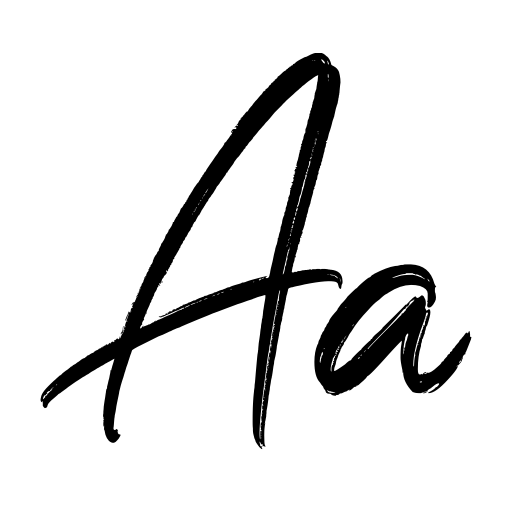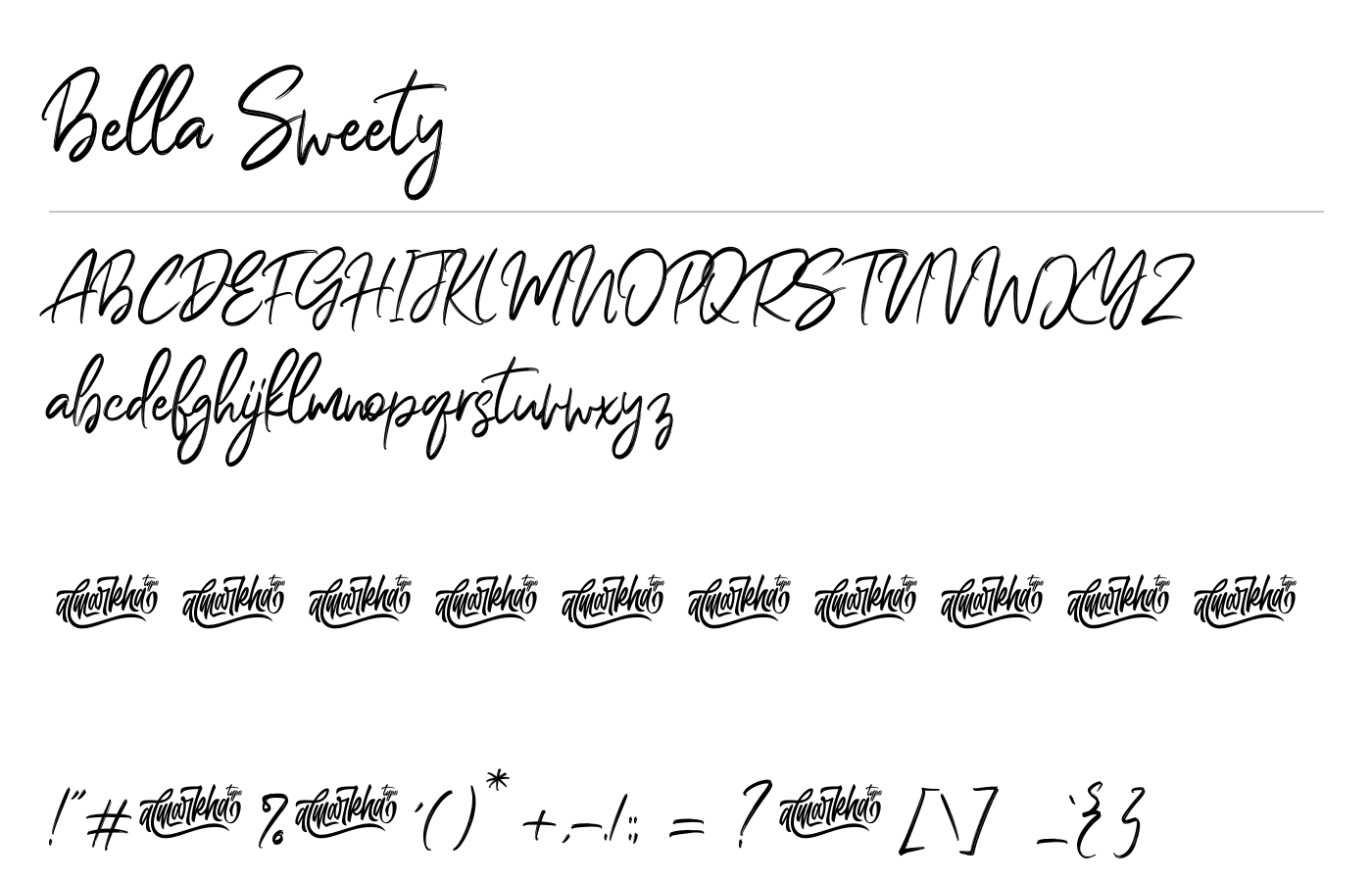
Bella Sweety is a lively and elegant script font that features smooth, flowing strokes with a hand-drawn feel. Its slender, slightly condensed letterforms and playful, casual style make it perfect for creative branding, invitations, and feminine design projects where a personal and stylish touch is desired. This font works best in headlines, logos, and decorative text that benefit from a friendly yet chic handwritten look.
Bella Sweety Font
About Bella Sweety Font
| Font family | Bella Sweety Font |
| Designer | Almarkhatype 2020 |